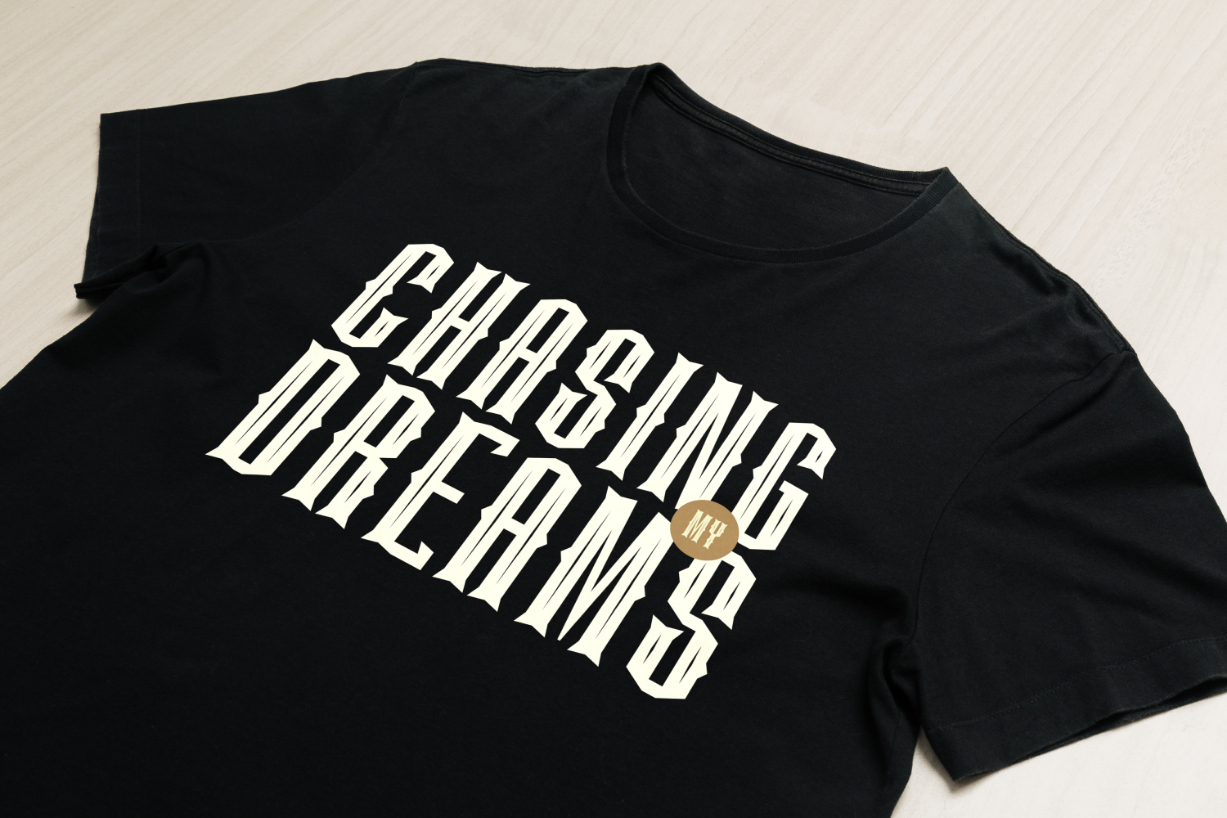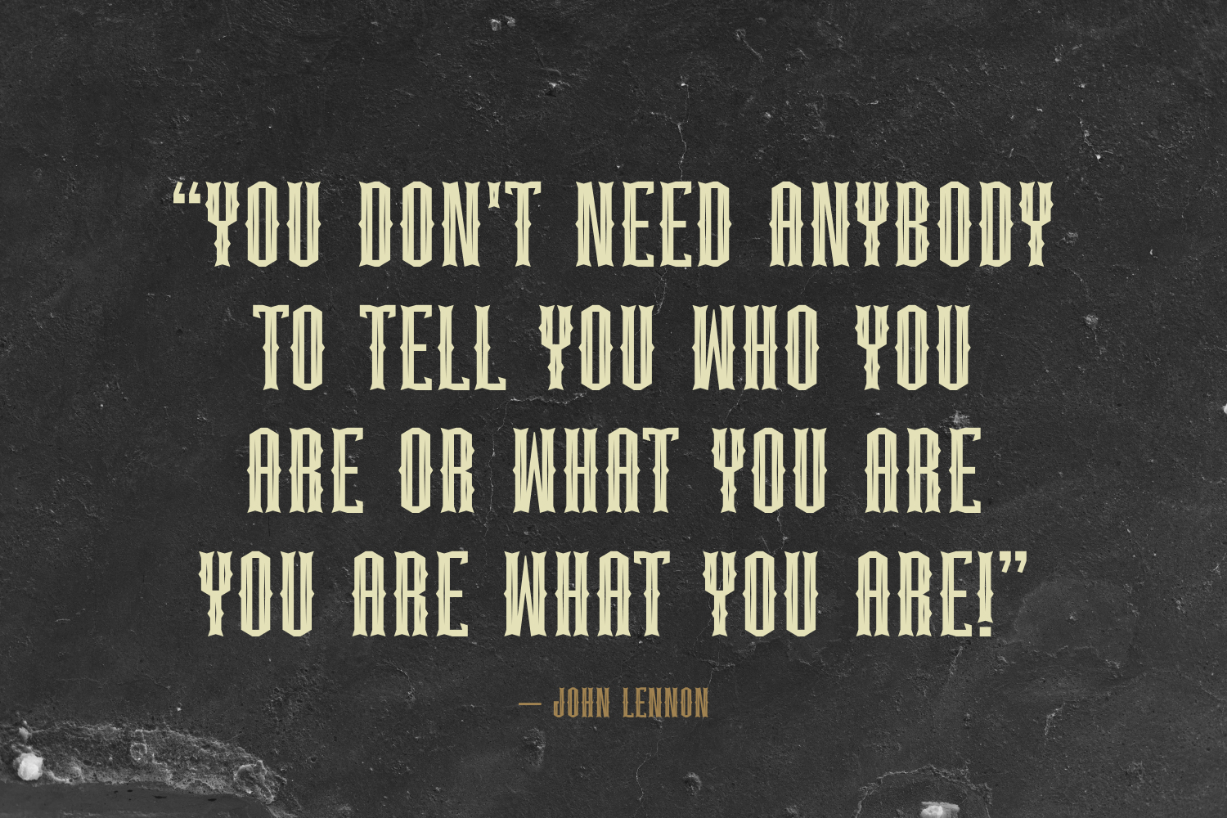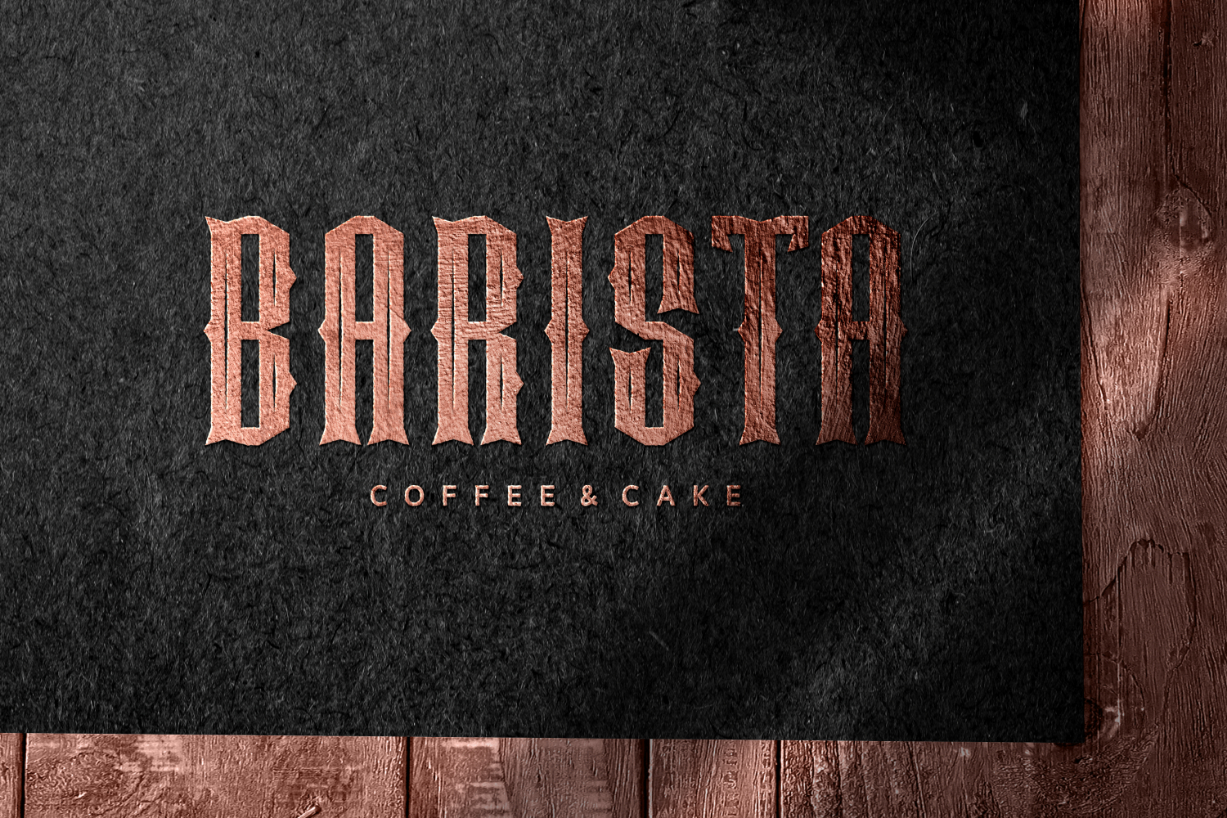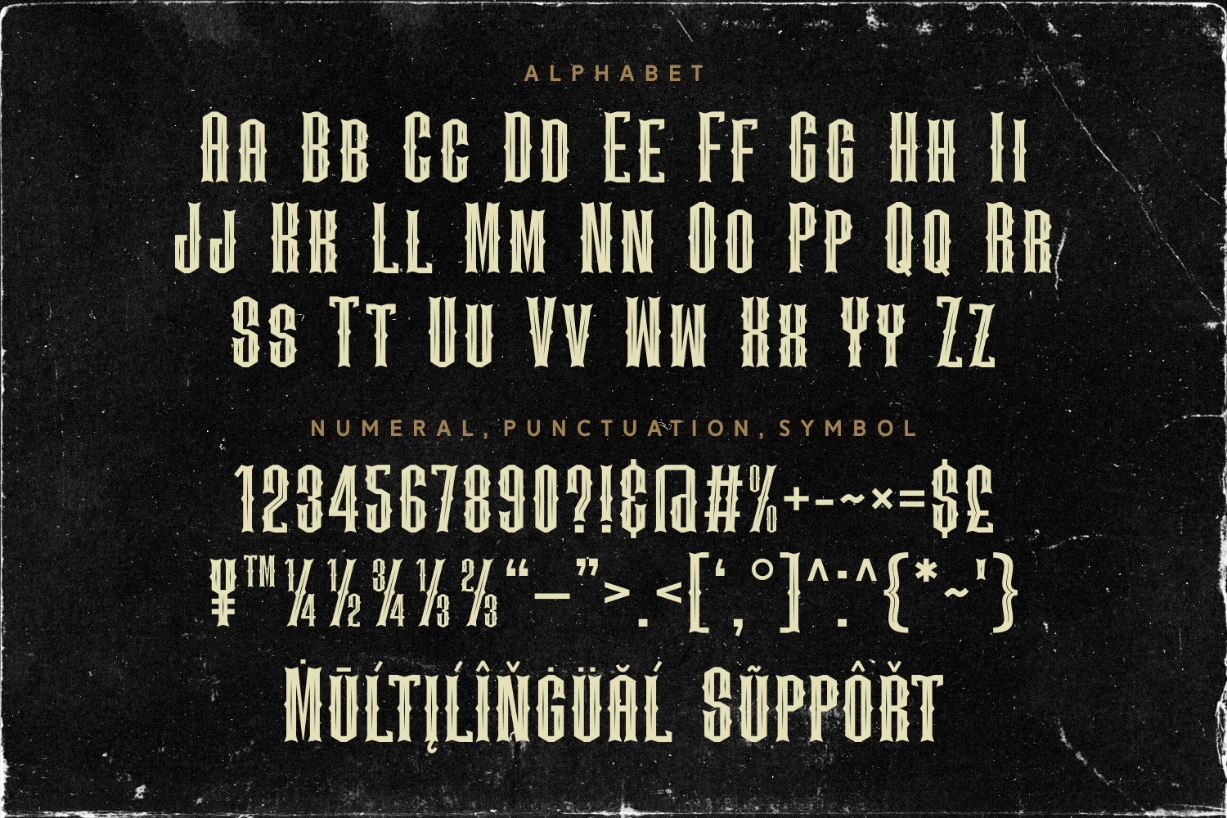
Strong Dreams Font
About Strong Dreams Font
Strong Dreams is a stunning vintage-style blackletter font. These tall and finely stylized characters have everything you need to create impressive typography. Unleash your creativity and use this fantastic font for various projects – posters, branding, logos, banners, signs, titles, and more.